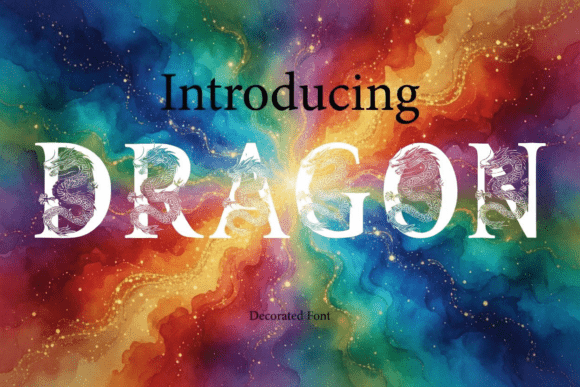
Unleash the Magic of Your Designs with the Dragon Font
Have you ever stared at a blank page, wondering how to make your next design truly unforgettable? For many creatives, the perfect font can be the spark that sets the imagination ablaze. If you’re looking for a way to transport your audience to a world of myth and magic, you’re in luck. Introducing the Dragon Font – a breathtaking, highly detailed decorated display font that’s guaranteed to make your titles stand out.
The Dragon Font is a beautifully intricate fusion of classic serif letterforms and mystical, winding dragons. Its striking balance of elegance and epic grandeur makes it the perfect addition to any fantasy-themed project. Whether you’re designing an epic book cover, creating a magical brand identity, or crafting a striking t-shirt design, this font is absolute perfection.
Dragon Font Key Features
- Unique Characteristics: Dragon Font features a unique blend of Eastern and Western design elements, with intricate details and ornaments, making it suitable for fantasy, gaming, and cultural designs.
- Font Style Variations: Dragon Font comes in multiple styles, including Regular, Bold, Italic, and Outline, allowing designers to choose the perfect font for their project.
Dragon Font Review
Overall, I think the Dragon Font has some great qualities, but it’s not perfect. Here are my thoughts:
- The font is highly customizable, with a wide range of options for adjusting the size, color, and style.
- The font has a unique and bold design that can add a lot of personality to a project.
- The font is highly legible, even at smaller sizes, which makes it a great choice for body text.
- The font may not be suitable for all types of projects, as it’s quite bold and attention-grabbing.
- The font may not be compatible with all systems or browsers, which could lead to display issues.
- The font is a bit too ornate for my taste, which may not be appealing to everyone.
I think the Dragon Font is a solid choice for projects where a bold, attention-grabbing font is needed. However, it may not be the best choice for more subtle or professional projects. With some careful consideration and customization, it could be a great addition to any design.
Tips for Getting the Most Out of the Dragon Font
To get the most out of the Dragon Font, try using it in bold or italic styles to add emphasis to your text.
Also, experiment with different font sizes and combinations to create a unique and eye-catching design.
The Dragon Font is perfect for fantasy-themed designs, such as:
- Book covers
- Poster designs
- Logo designs
- Graphic novels